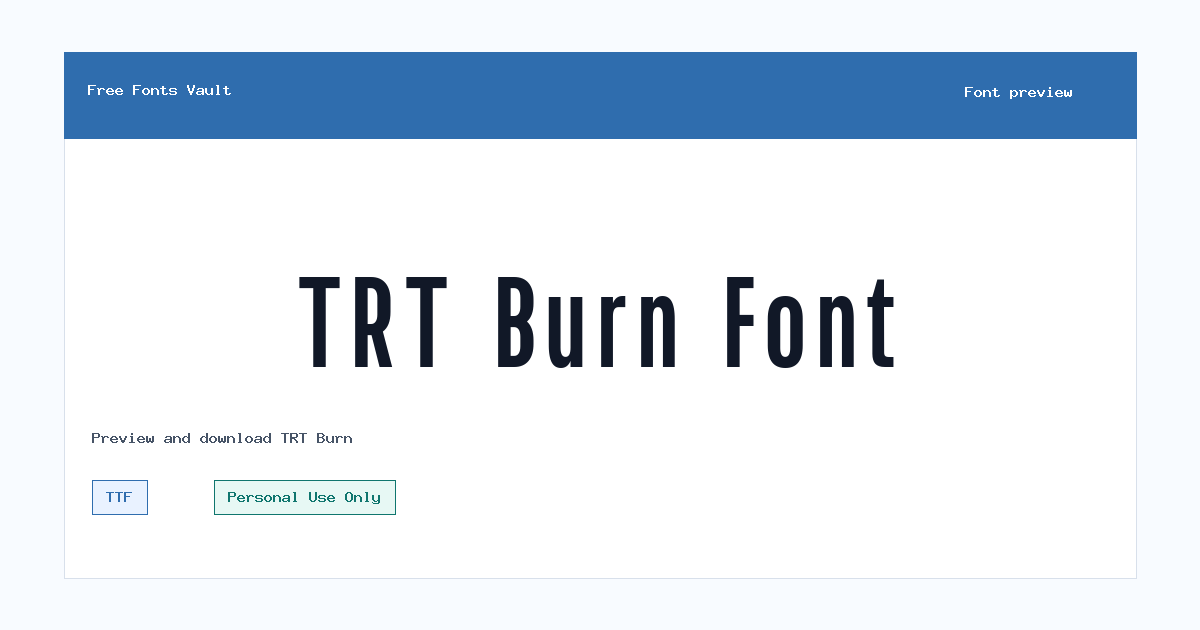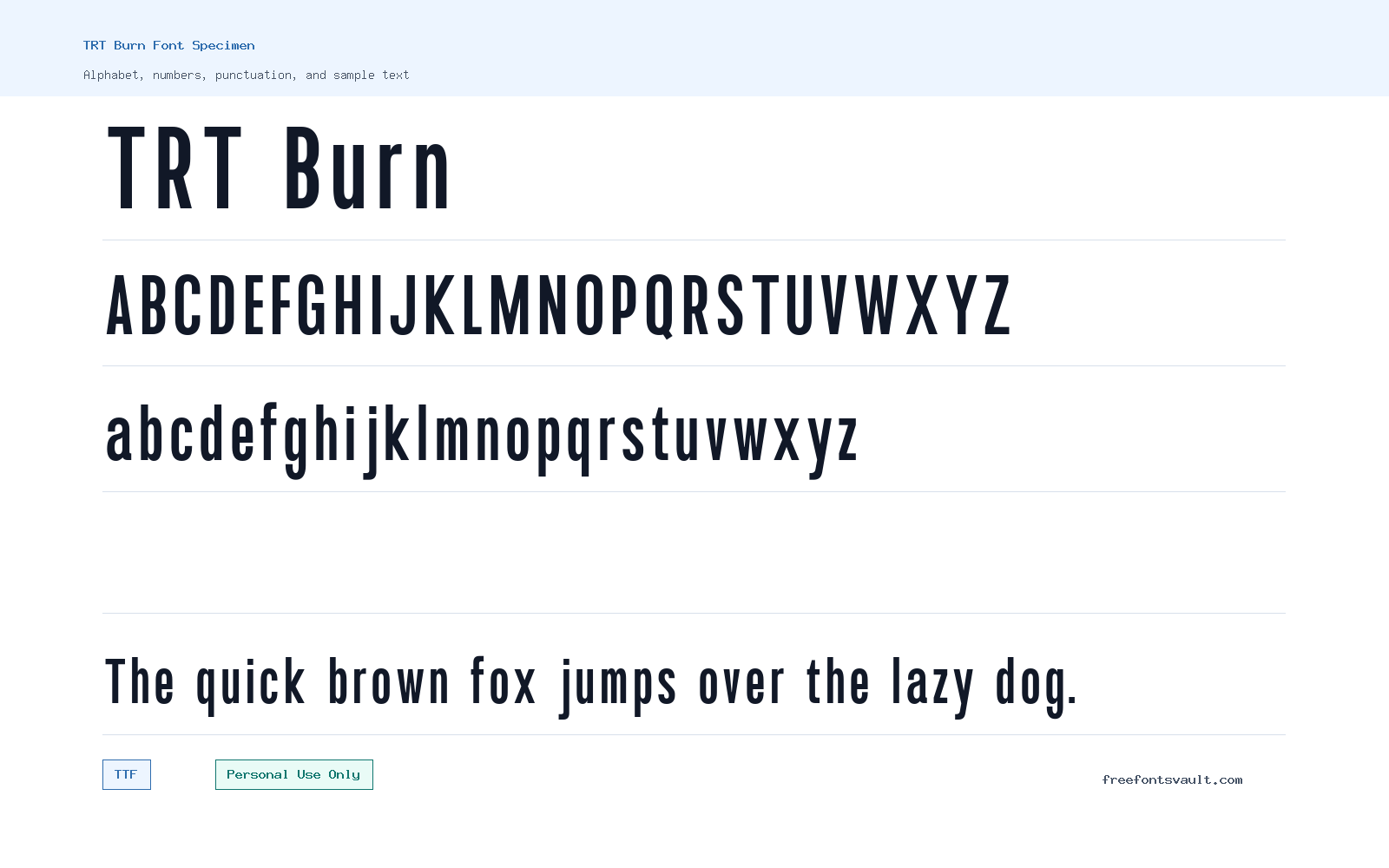
TRT Burn
TRT Burn font preview showing the family name
TRT Burn Font
TRT Burn font specimen showing alphabet, numbers, and sample text
• Designer Zainaldi Ibrahim of Truetype
• Foundry Truetype
TRT Burn is a sans serif display font with a strong, compact feel that works best when the words need to stand out quickly. It comes in regular and bold TTF styles, making it useful for testing heavier headlines, poster text, logo sketches, and visual branding ideas before choosing a final type system.
About TRT Burn Font
TRT Burn has the kind of direct, attention-focused look that suits short text more than long reading. The available styles cover a regular weight and a bold weight, so you can try a lighter display setting or push the same design into a heavier headline. Because the font is offered as demo TTF files, it is a practical choice for previewing ideas in design software, mockups, and personal projects. It is not a font to judge only from the alphabet grid; type a few real words into the preview and look at how the spacing, letter shapes, and weight feel in the exact phrase you plan to use.
For design work, TRT Burn is most useful in places where the text is short and visual impact matters: poster titles, social graphics, YouTube thumbnails, album-style layouts, sports or streetwear-inspired concepts, game mockups, event flyers, and logo drafts. The bold style can carry a title on its own, while the regular style may be better for supporting words, smaller labels, or secondary lines. If you are testing it for logo work, try the brand name in all caps, title case, and lowercase if supported by your design needs. Also check letters that often affect logo balance, such as A, R, T, S, O, and any repeated characters in the name.
TRT Burn should be treated as a display face rather than a body-text font. Long paragraphs, dense menus, and small mobile text may become tiring if the shapes are too forceful at small sizes. A safer approach is to use TRT Burn for the main wordmark or headline, then pair it with a plain sans serif for descriptions, navigation, captions, and longer copy. This keeps the page or poster readable while still giving the main message a stronger voice.
When pairing TRT Burn, avoid combining it with another highly decorative font in the same layout. Two loud typefaces can compete and make the design feel unfocused. Use TRT Burn as the visual lead, then choose a neutral companion font with simple letterforms and comfortable spacing. For web mockups, it can work well in hero sections, promotional banners, and campaign visuals, but test the font size carefully. A headline that looks sharp on desktop may need extra spacing or a simpler layout on mobile.
• Sans serif display style suited to short, high-impact text
• Useful for personal design mockups, poster titles, logo drafts, and social graphics
• Best used at medium to large sizes where the shapes can be clearly seen
• Works more safely with a neutral sans serif companion font for body text
• Poster headlines and event flyer titles
• Logo concepts and wordmark drafts
• YouTube thumbnails, social media graphics, and promotional images
• Streetwear, sports, game, or music-themed personal mockups
• Hero sections and banner text in web design previews
• Short labels, badges, and bold display typography experiments
Use TRT Burn for short text first: names, headlines, poster titles, and logo drafts. Test both regular and bold styles in the preview, then check spacing at the size you plan to use. For readable layouts, pair it with a clean sans serif for paragraphs, captions, and interface text.
Which style should I try first?
Try the bold style for main headlines and the regular style for secondary words or less forceful display text. Preview both with your actual wording before choosing.
What should I pair TRT Burn with?
Pair it with a simple sans serif font for body copy, captions, menus, and supporting information. Avoid using another decorative display font beside it unless the design is intentionally experimental.